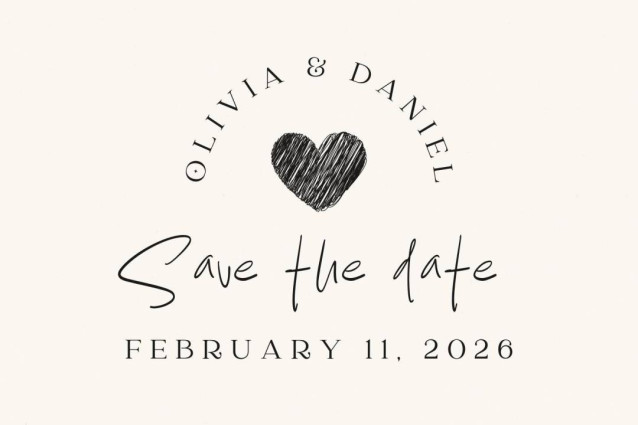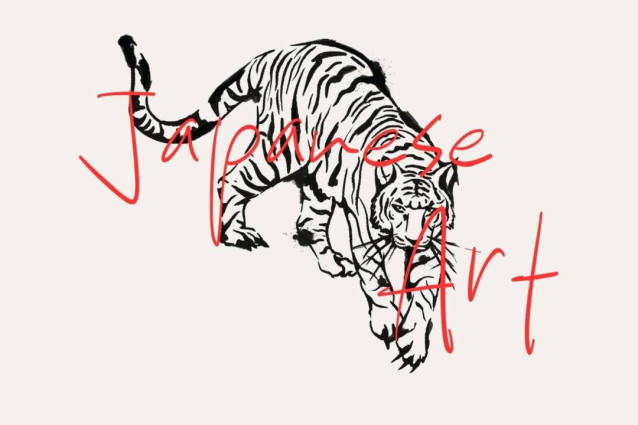
Ghost Hand Font
Ghost Hand Font is a simple and friendly handwritten font. Its natural and unique style makes it incredibly fitting to a large pool of designs. The only limit is your imagination!